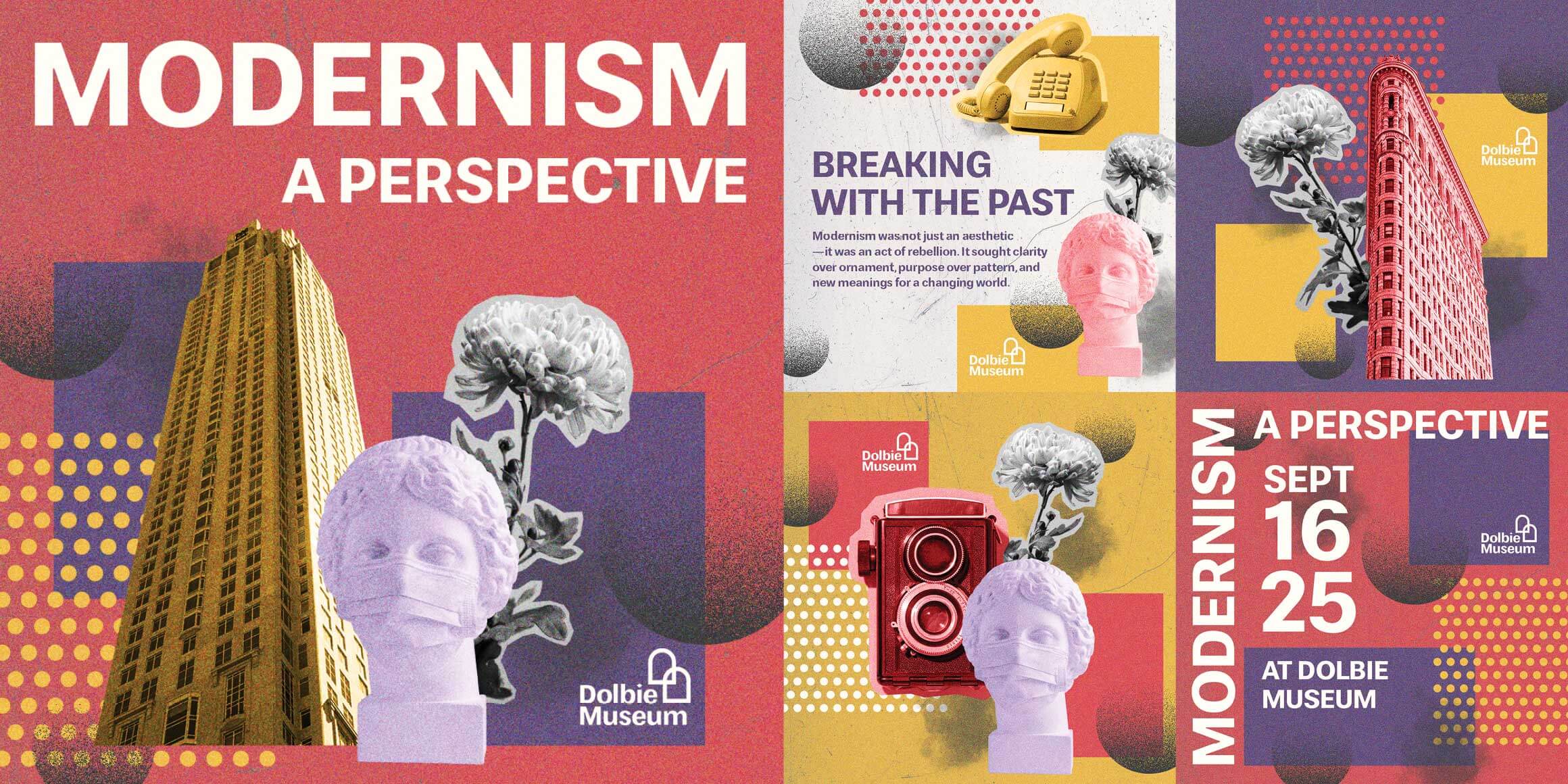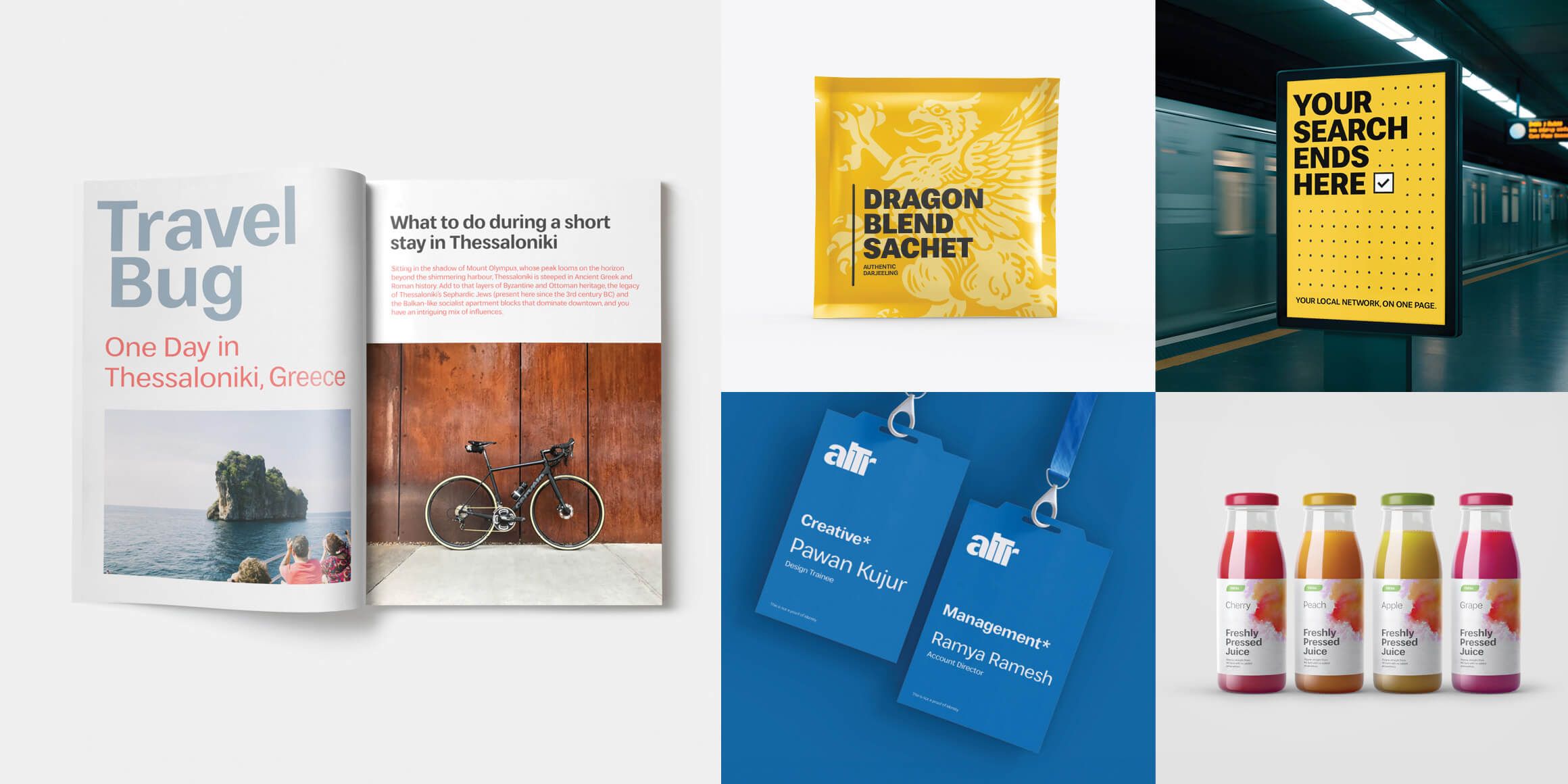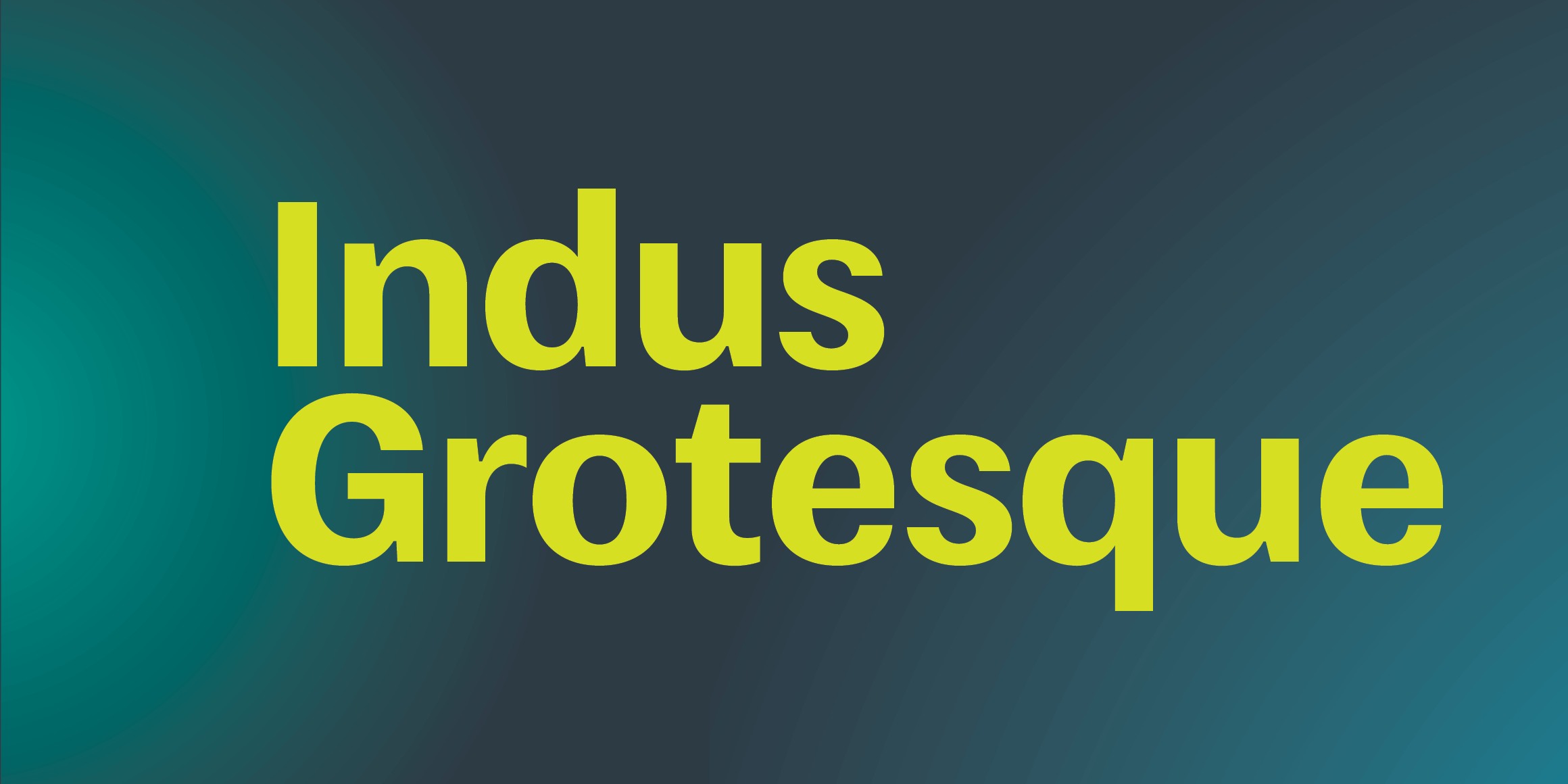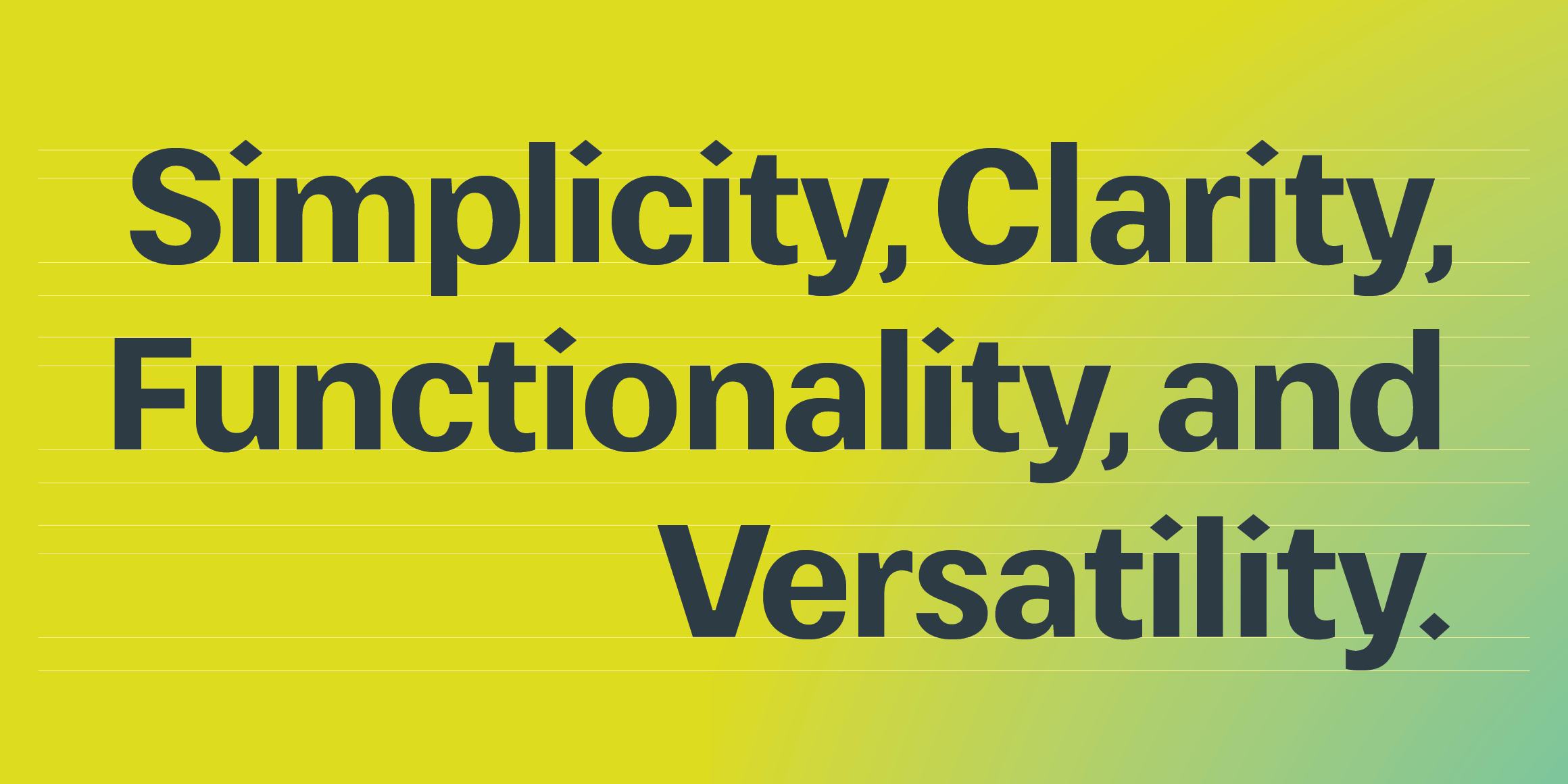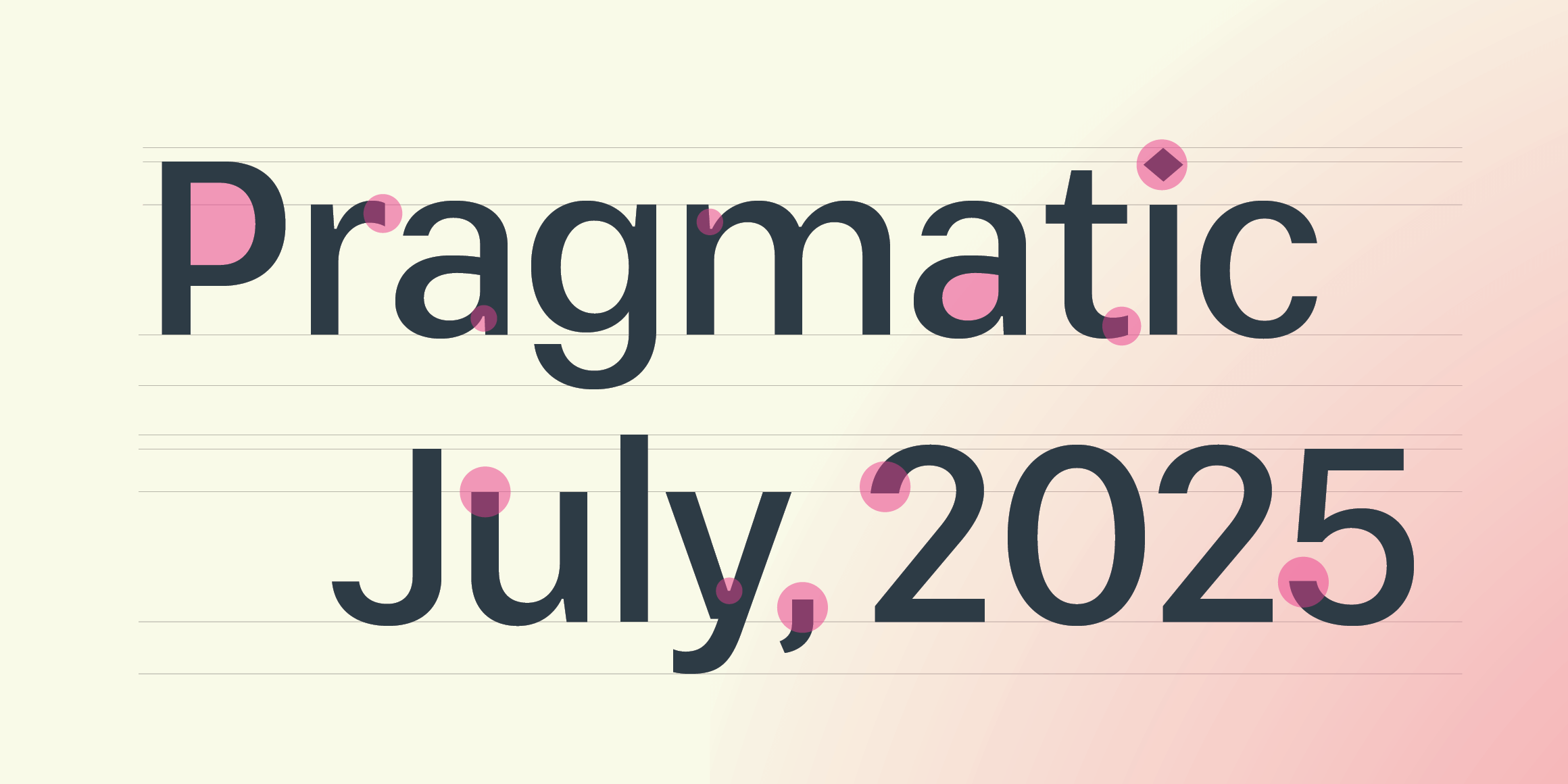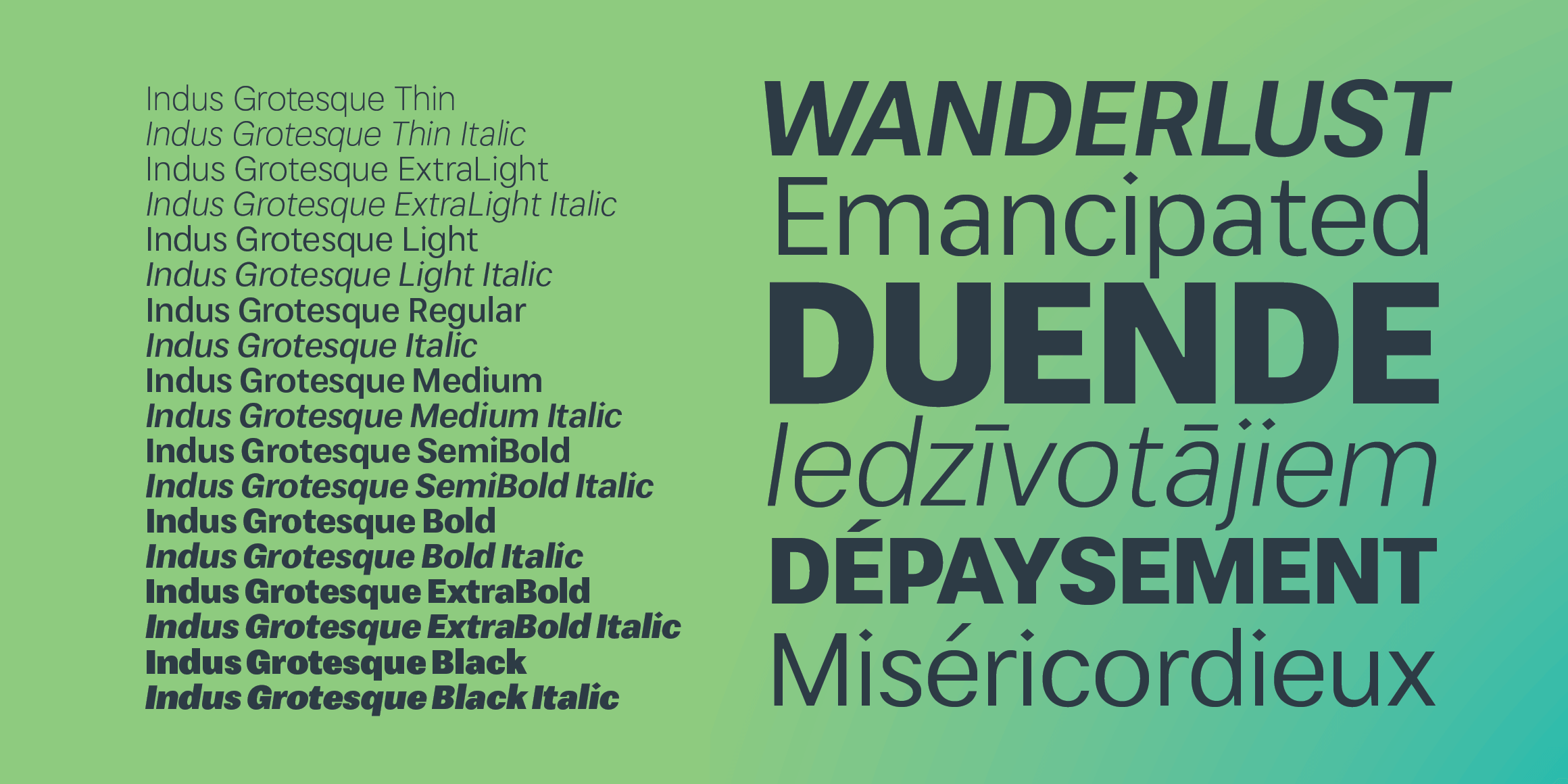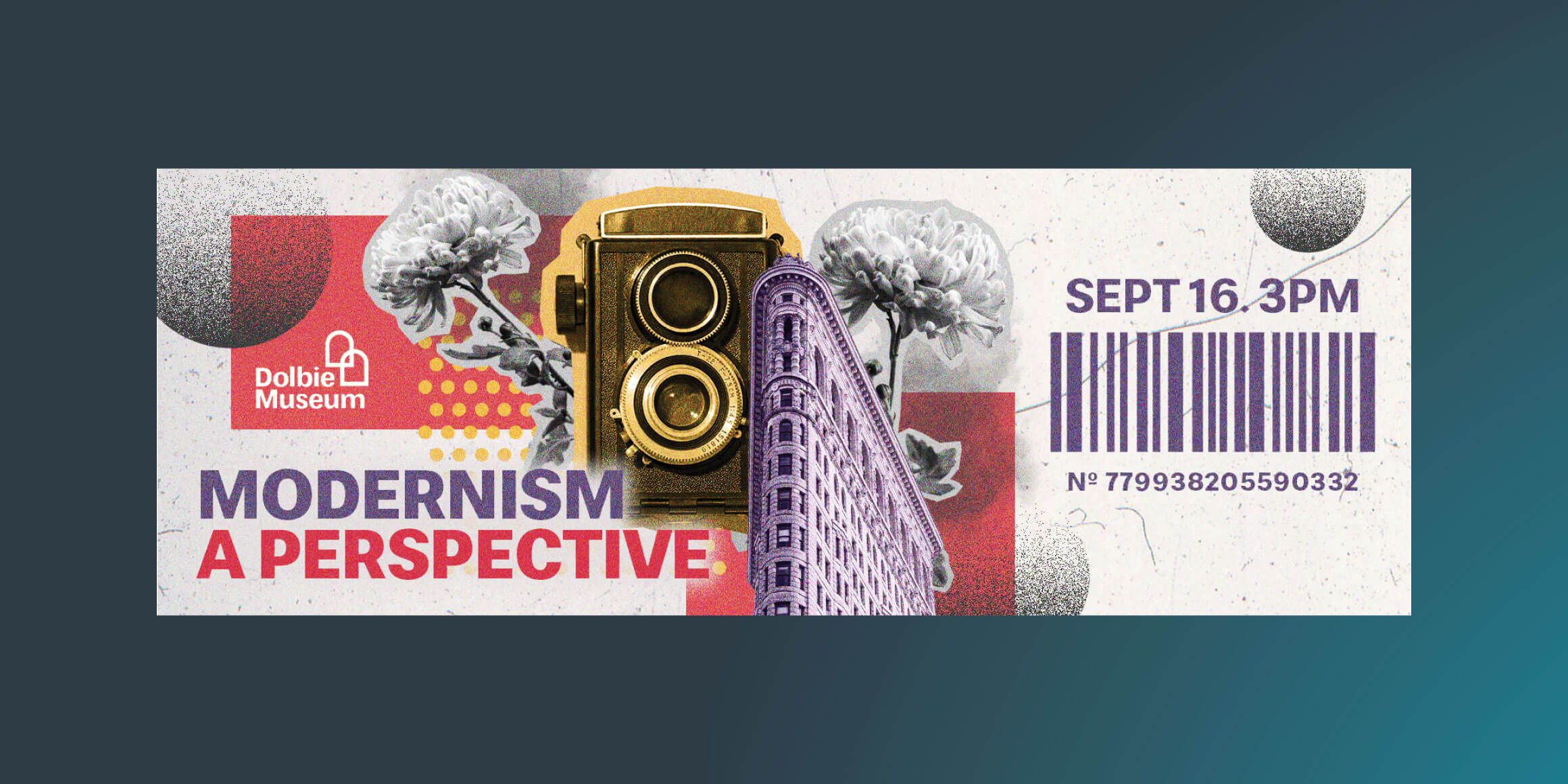
Indus Grotesque
Indus Grotesque is the base Latin for the broader Indus multi-script font project, encompassing support for all Indian scripts and languages. Emphasizing simplicity, clarity, functionality, and versatile usability, the project aims to seamlessly integrate 'Grotesque' aesthetics into Indic scripts while preserving the traditional letter shapes and proportions. The overarching goal is to strike a harmonious balance between modern design elements and the inherent characteristics of Indic scripts, ensuring a font that is not only visually engaging but also culturally and linguistically faithful to its diverse users.